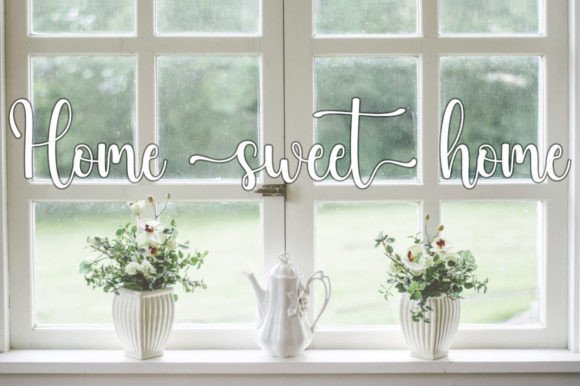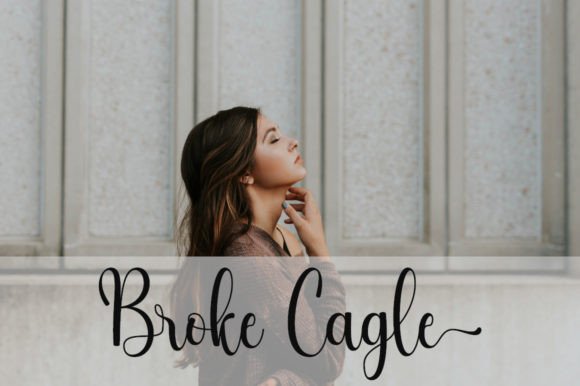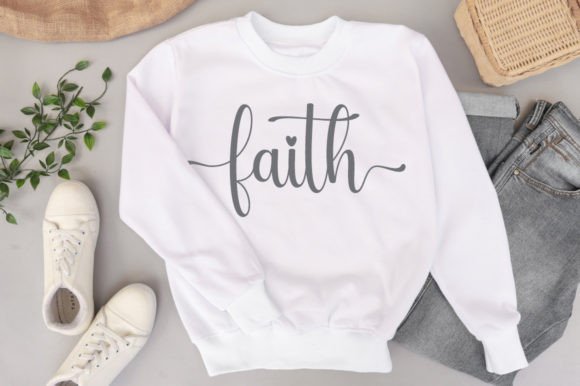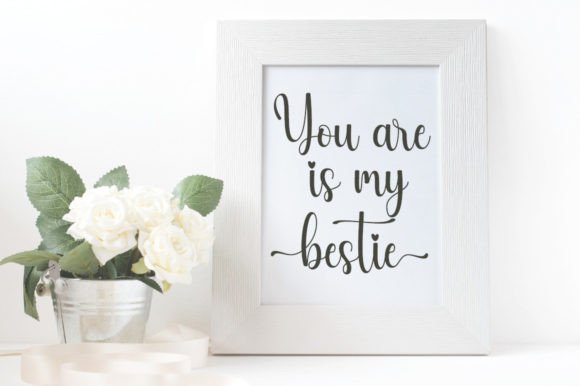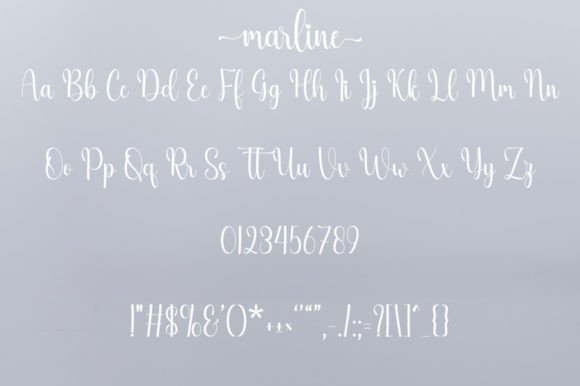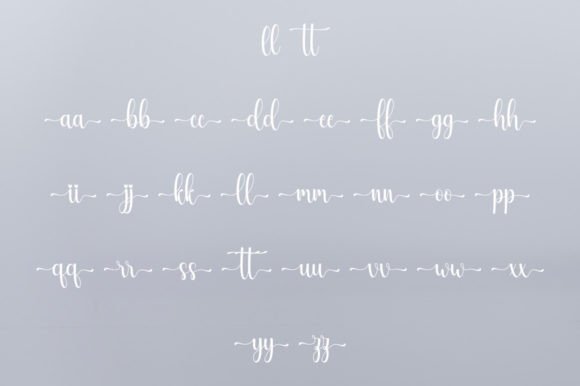
Introduction to Marline Font
Marline is a simple and friendly handwritten font.
Whether youโre using it for crafts, digital design, presentations, or making greeting cards, this font has the potential to become your favorite go-to font, no matter the occasion This font is PUA encoded, so you can easily access all the glyphs and swashes.
Marline Font offers exceptional quality and versatility, making it a valuable addition to your design toolkit. Whether you’re creating for personal projects or commercial use, Marline Font delivers professional results.